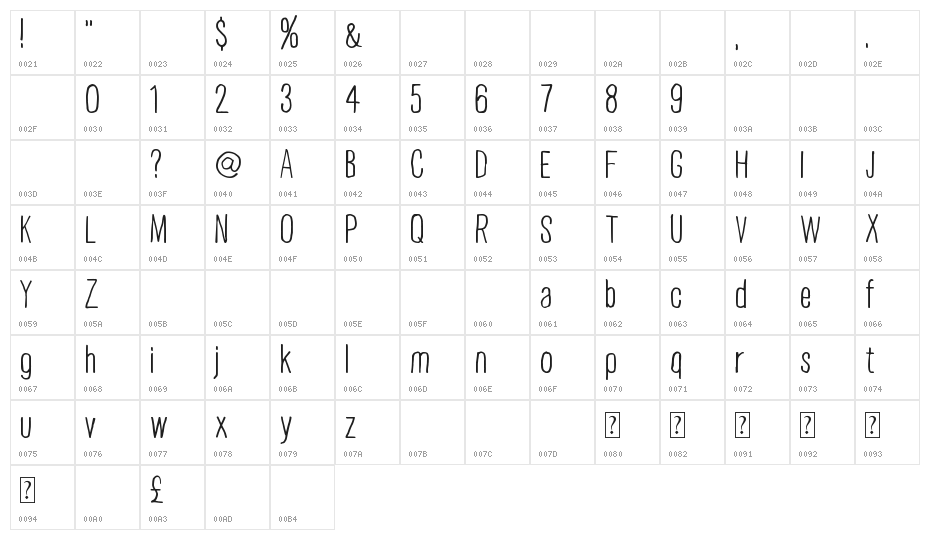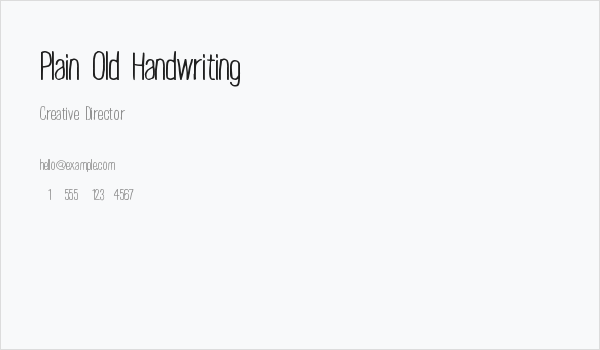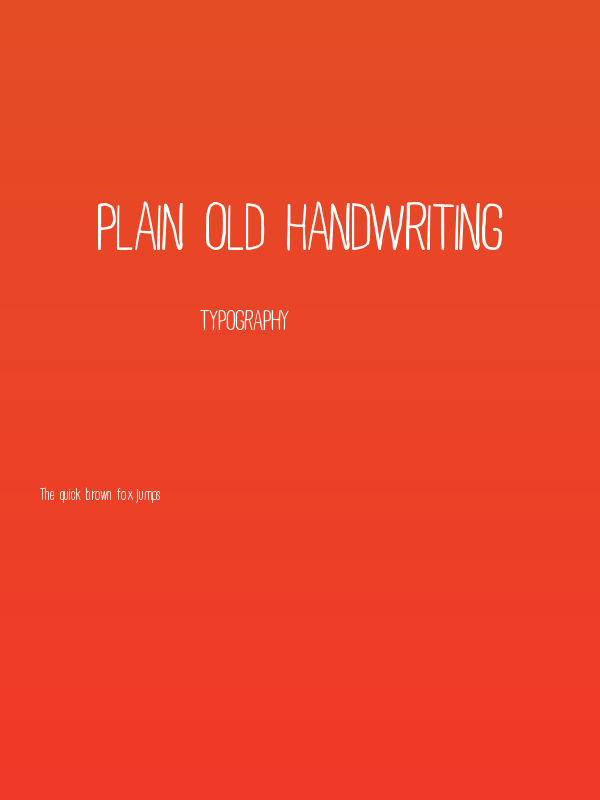
Plain Old Handwriting Font
Plain Old Handwriting Description
This font exudes a casual and approachable feel, reminiscent of handwritten notes. The characters are slightly irregular, adding a personal touch that mimics natural handwriting. The strokes are consistent in width, giving it a uniform appearance despite its informal style. The uppercase letters are tall and narrow, while the lowercase letters maintain a similar height, creating a cohesive look. Numbers and special characters follow the same handwritten aesthetic, making them blend seamlessly with the alphabet. This font is ideal for projects that require a personal or informal tone, such as greeting cards, personal blogs, or creative projects.
| Overall Style | Casual, Personal |
| Use Case | Creative projects, Informal text |
| Proposed Projects | Greeting cards, personal blogs, creative projects, informal invitations. |